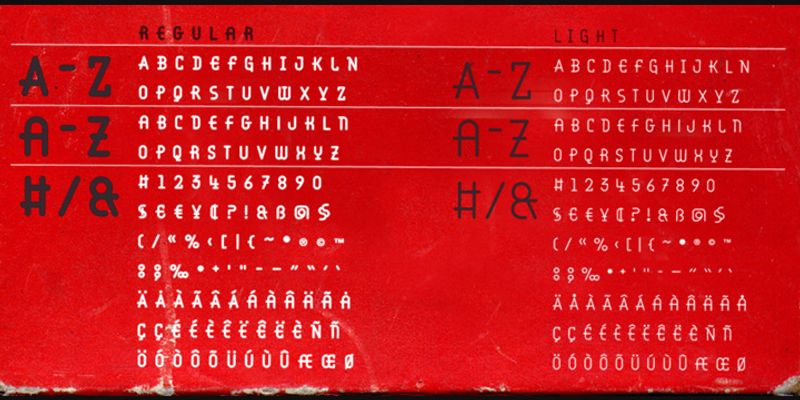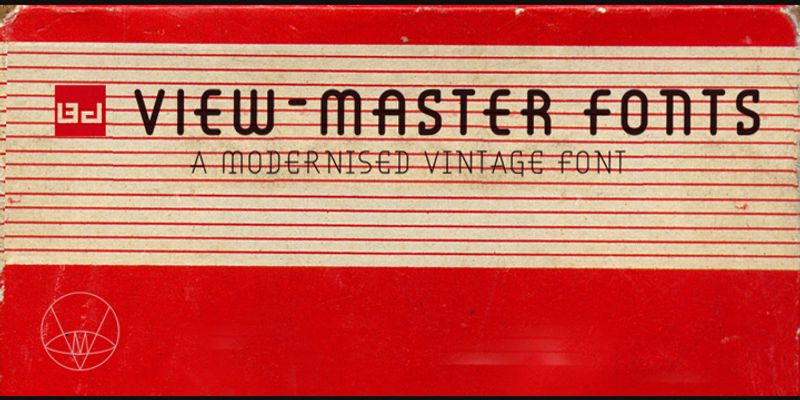
BD Viewmaster is inspired by the font used on the legendary View-Master products. It’s an uppercase font with variations and two different styles: Light and Regular. Designed by Lopetz in 2008.